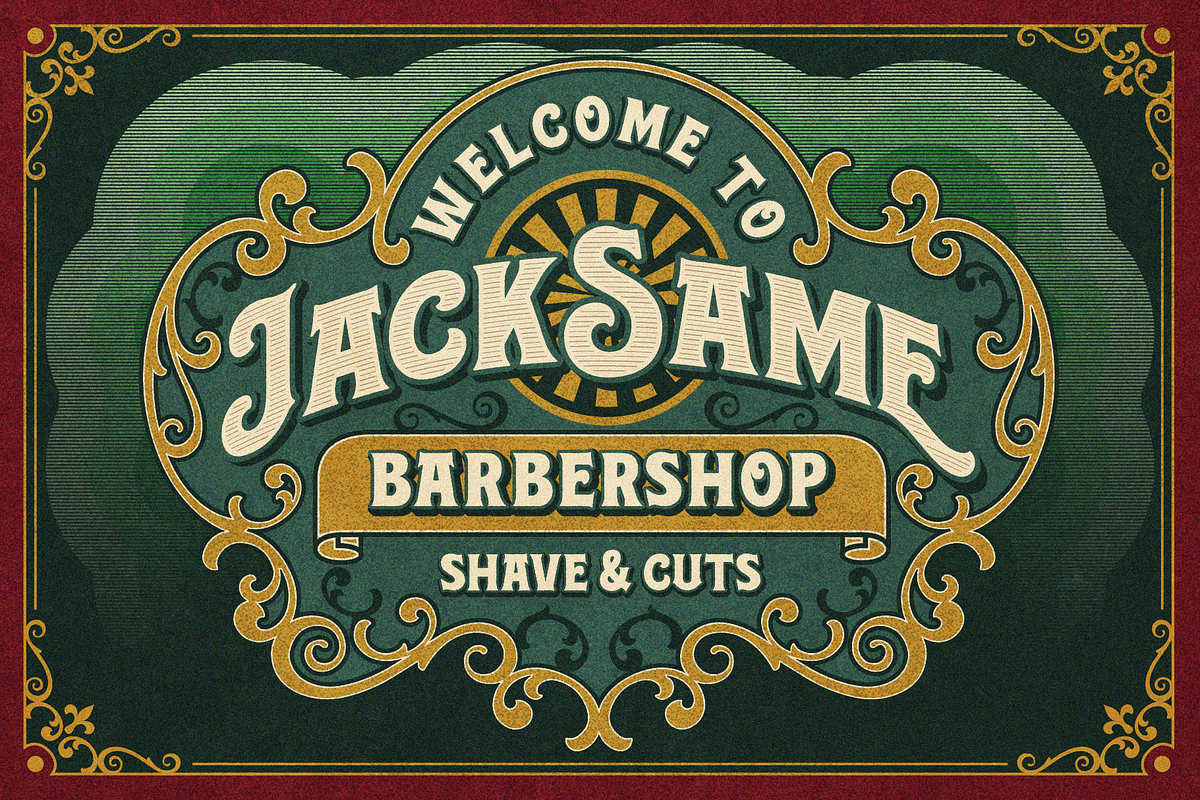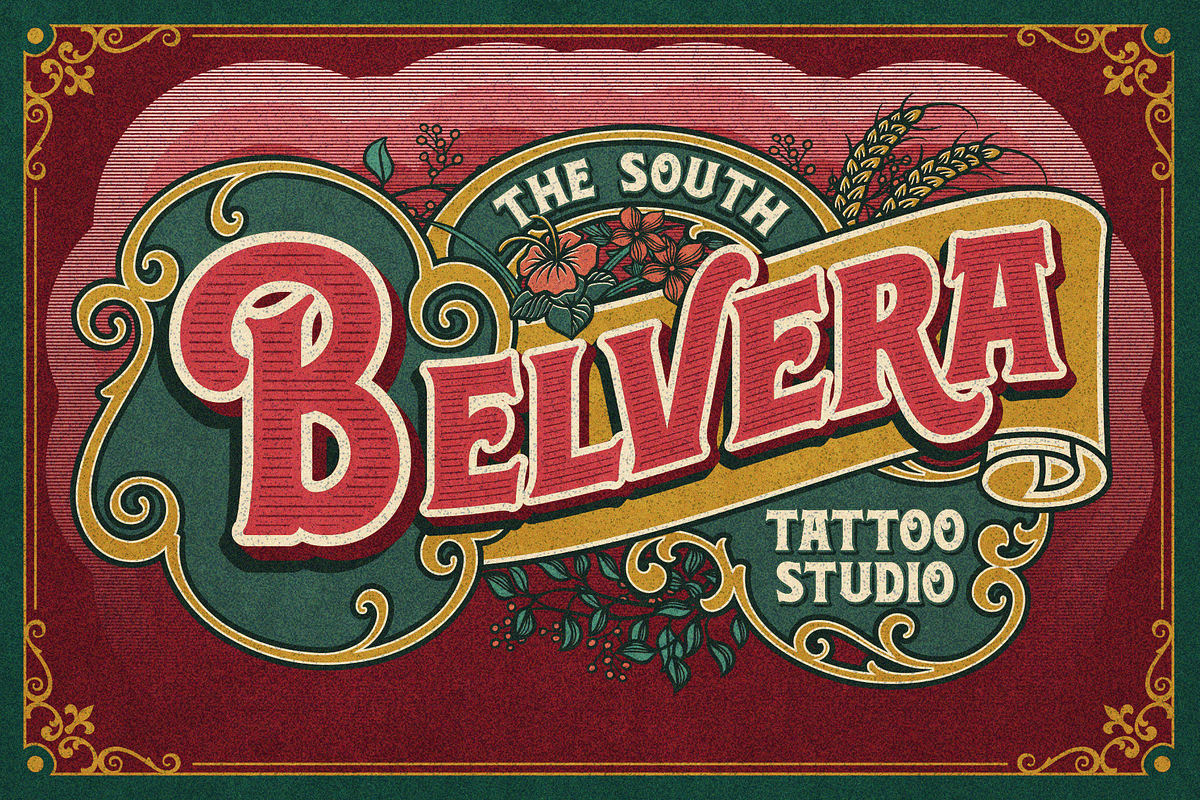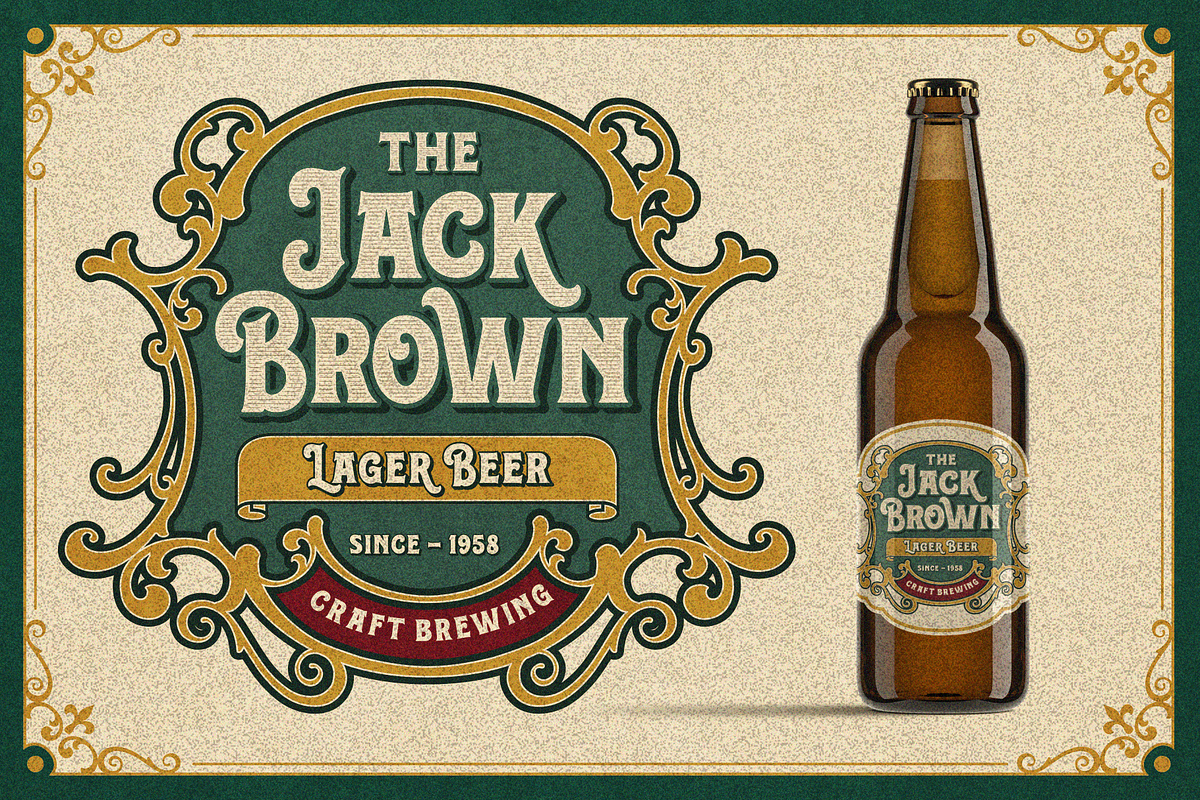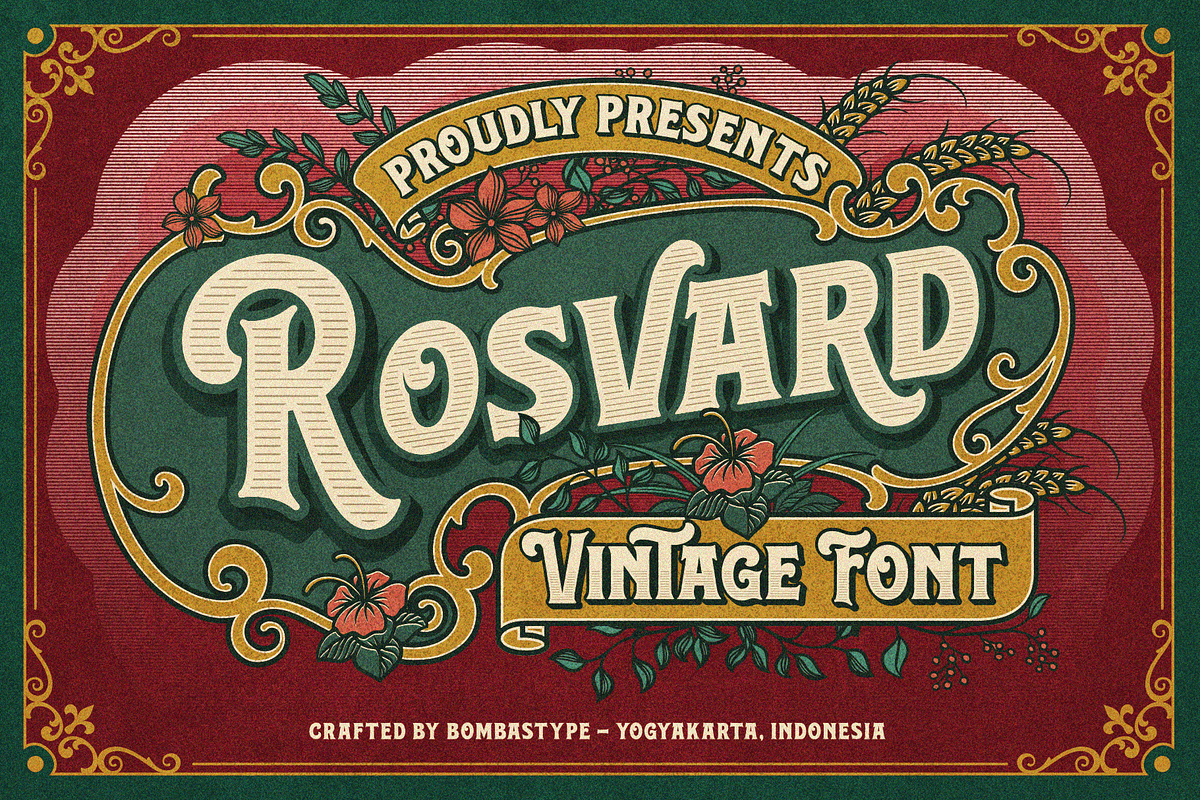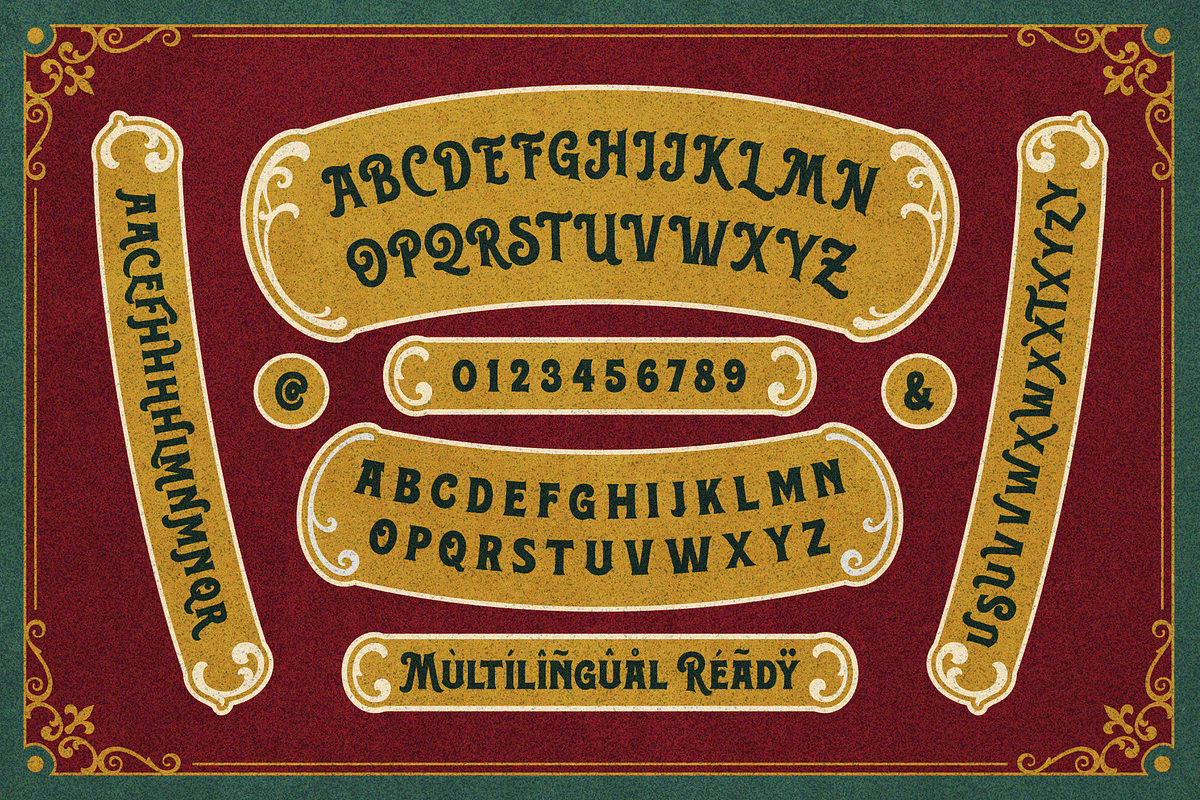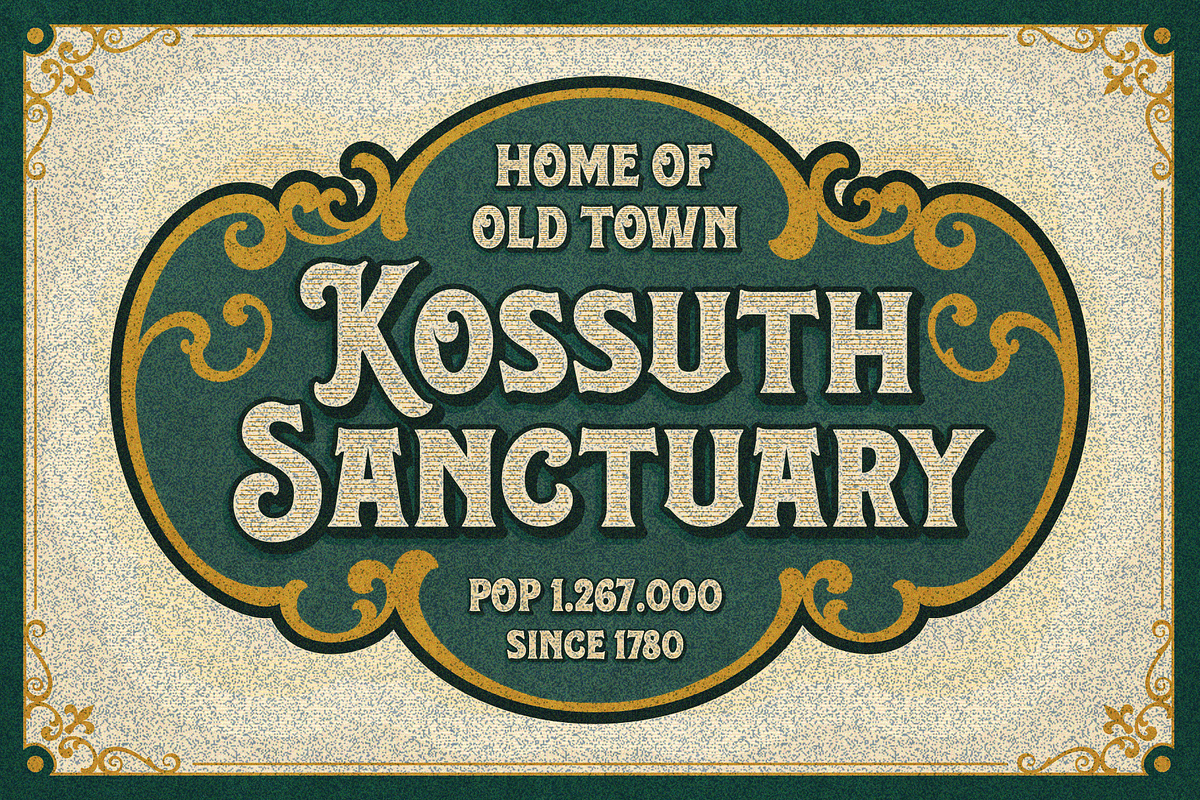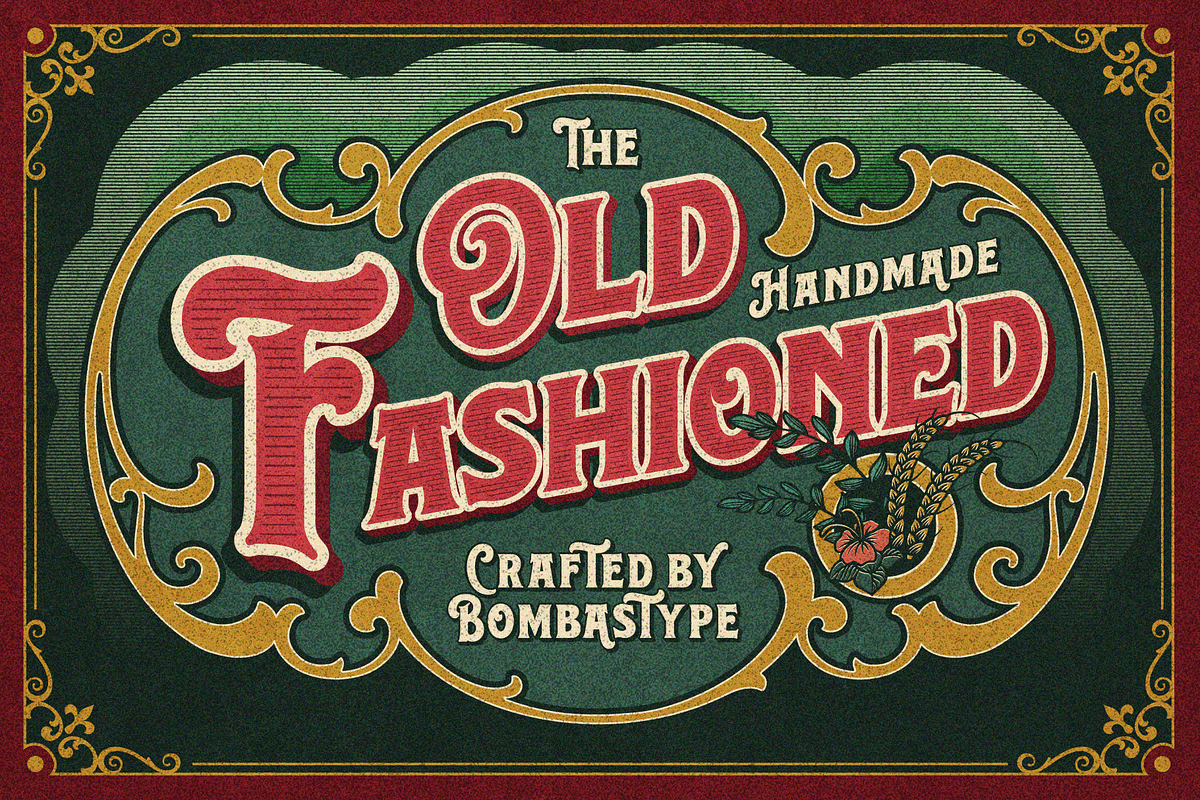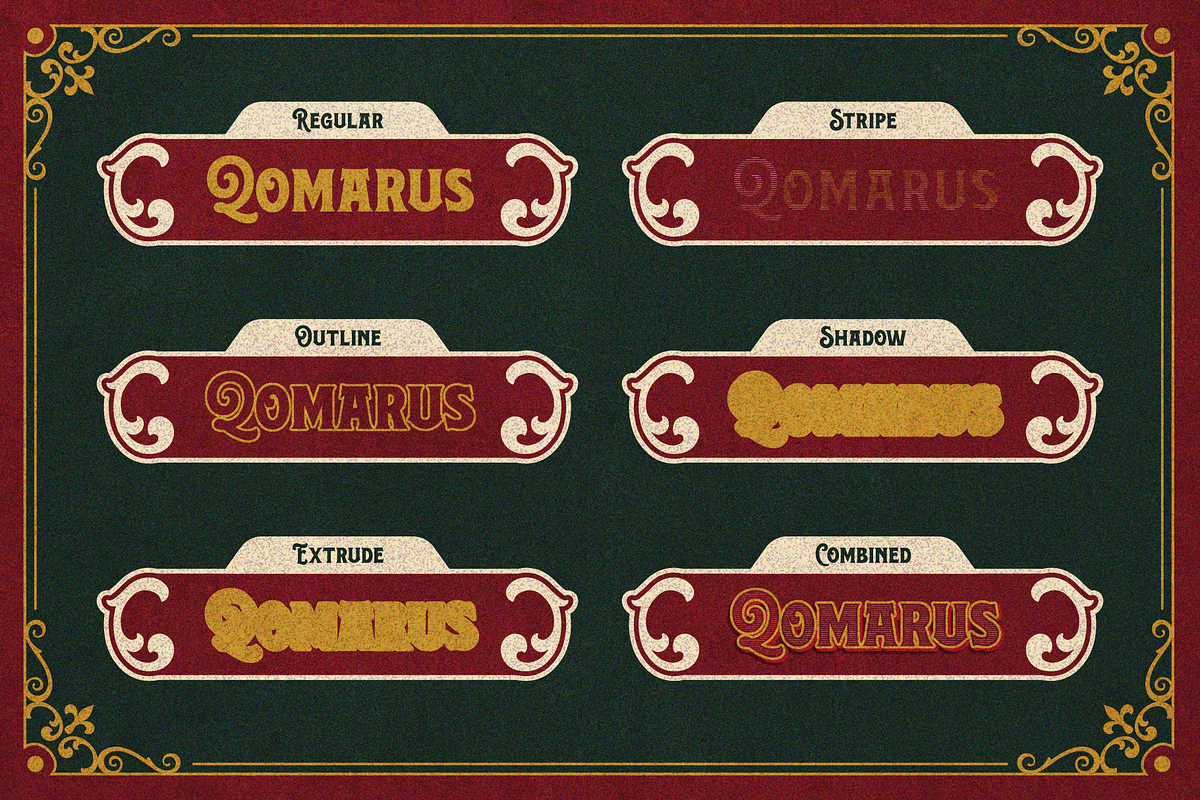
Rosvard - Vintage Layered Typeface
Rosvard is our new old fashioned typeface. Inspired by vintage signages and brewery emblems. You could feel the vintage vibe on our preview images. Although you could use it to modern design as well. Since our last font just single font. We decide to make another layered font like we did in the past. This one in particular contains Stripe, Outline, Regular, Extrude and Shadow. You could combined all of them of just use two or three of them as you like. We also give you the separate ornaments we used for the preview image as an icon/dingbat font. You could mix and match each part to make your own badge / emblem. Because we believe you could do it.